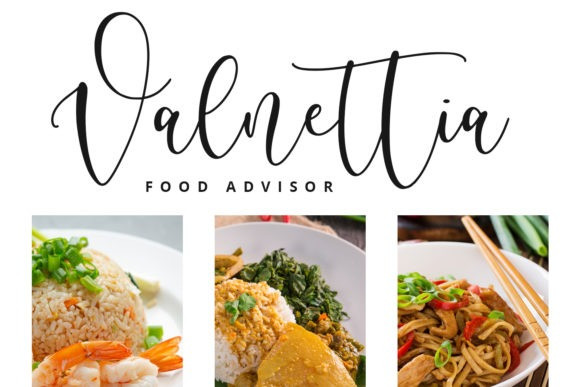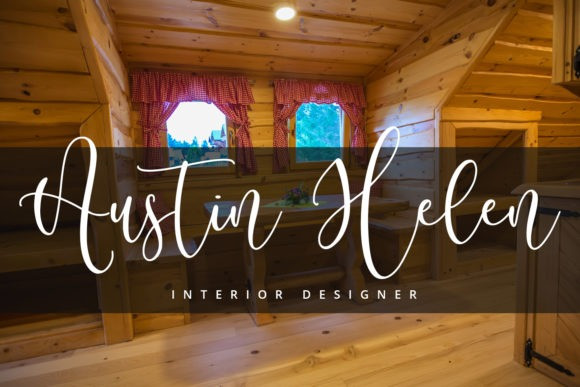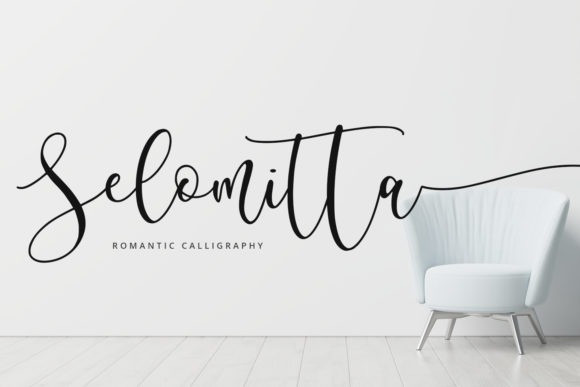
Selomitta Font
Selomitta Script Font is a lovely and timeless handwritten font. It is the best choice for creating eye catching logos, branding and quotes. Every letter has a unique and beautiful touch, which will make your design come alive!